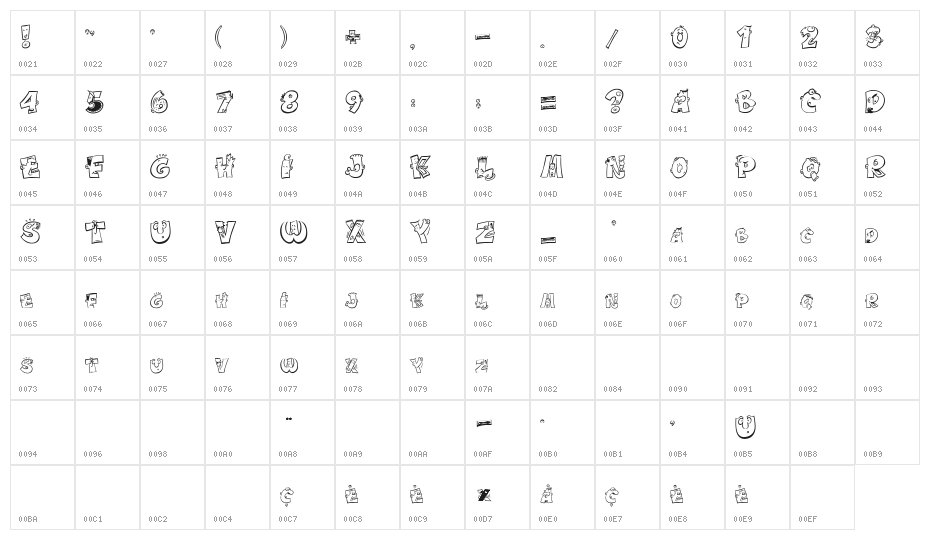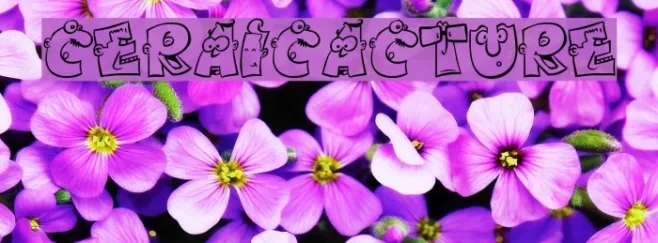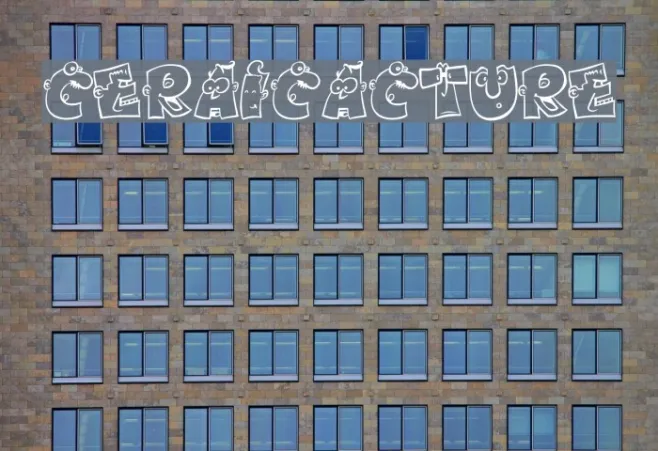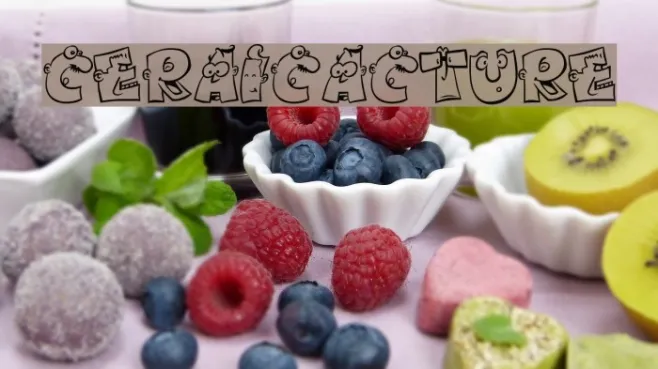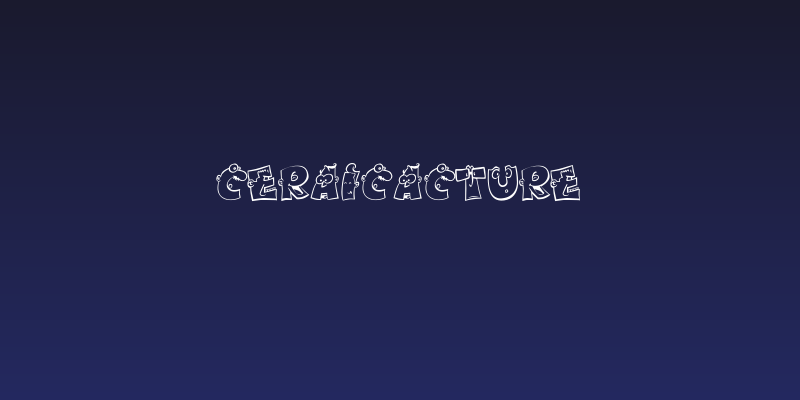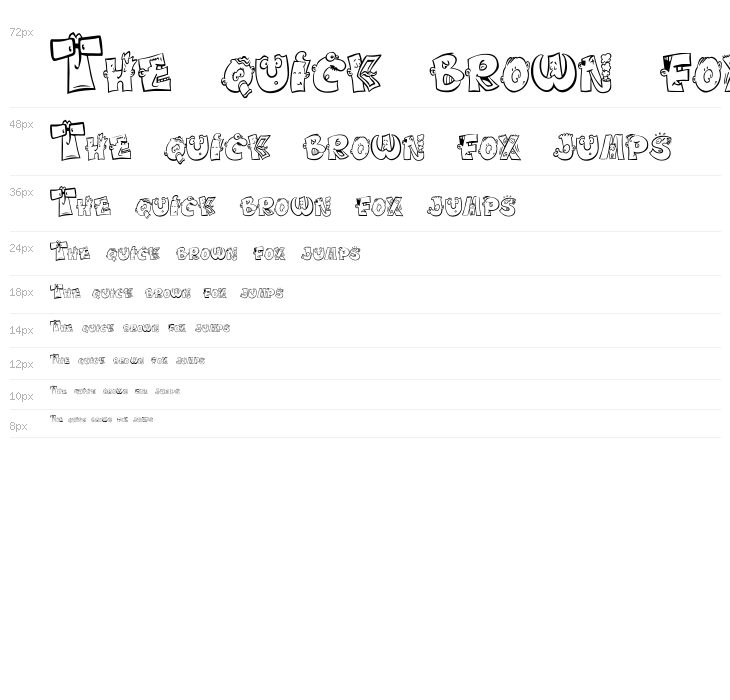
ceraicacture Font
ceraicacture Description
This playful and whimsical font features characters with quirky, cartoon-like faces and expressions integrated into each letter and number. The design is highly decorative, with each character having unique embellishments such as eyes, mouths, and other facial features, giving them a lively and animated appearance. The font is bold and eye-catching, with thick strokes and a hand-drawn style that adds to its charm. It is perfect for projects that require a fun and engaging visual element, such as children's books, comic strips, or playful branding. The font's unique personality makes it stand out, making it ideal for creative and informal applications.
| Proposed Projects | Children's books, comic strips, playful branding, party invitations, and creative posters. |